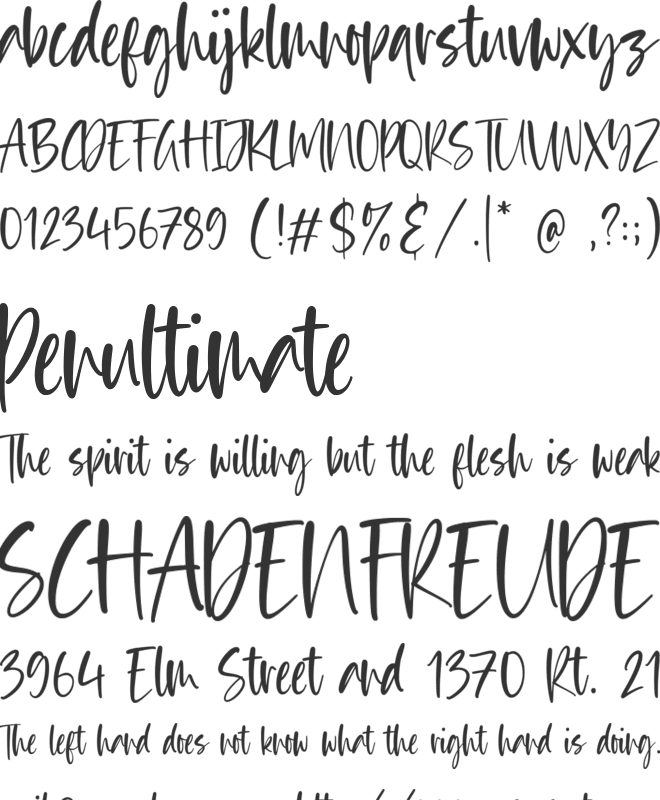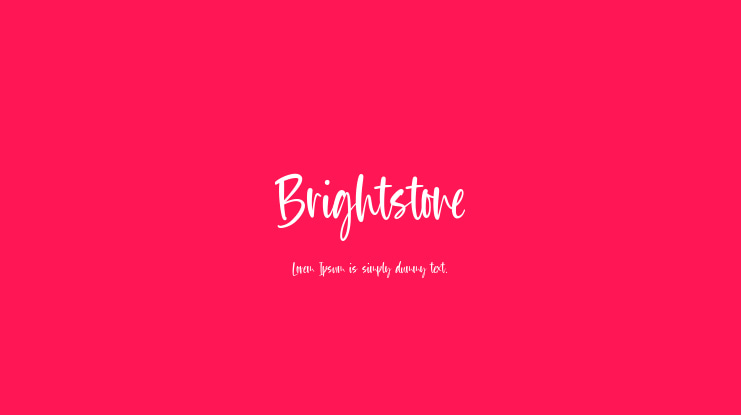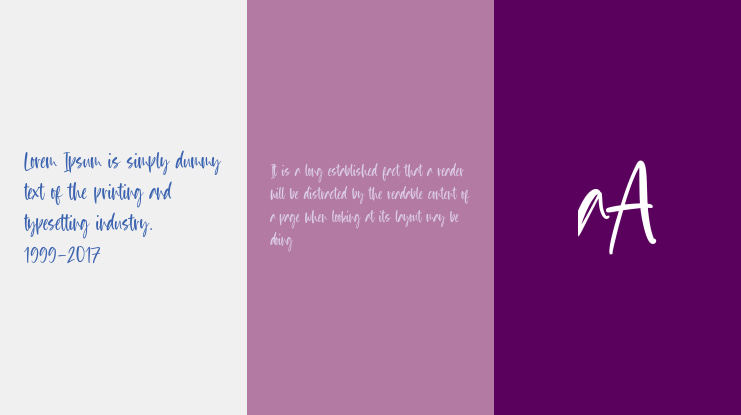
Brightstone Font
Proudly Present, Brightstone Font.
Brightstone is a Modern Handwritten Script Font. This font is suitable for use in your design projects.s
It is perfect for wedding, event, invitation, escort card, table number, header menus, display, logos, slider blog, custom address, stamps, packaging, greeting card, etc.
Brightstone font preview